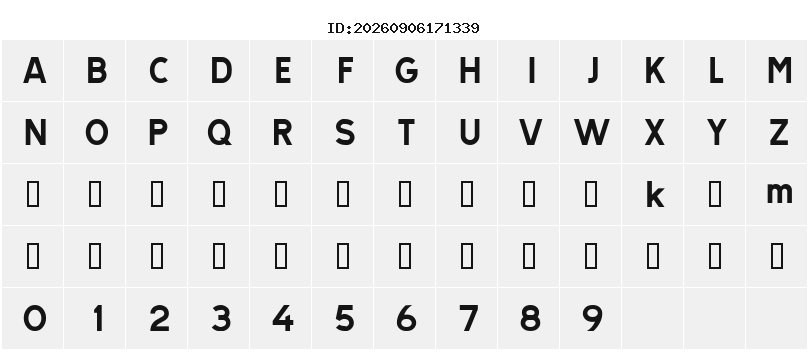
TRATEXPOSVERSAL.ttf is a modern, elegant sans-serif font designed for ultimate readability and visual harmony. Perfect for branding, headlines, web design, and print materials.